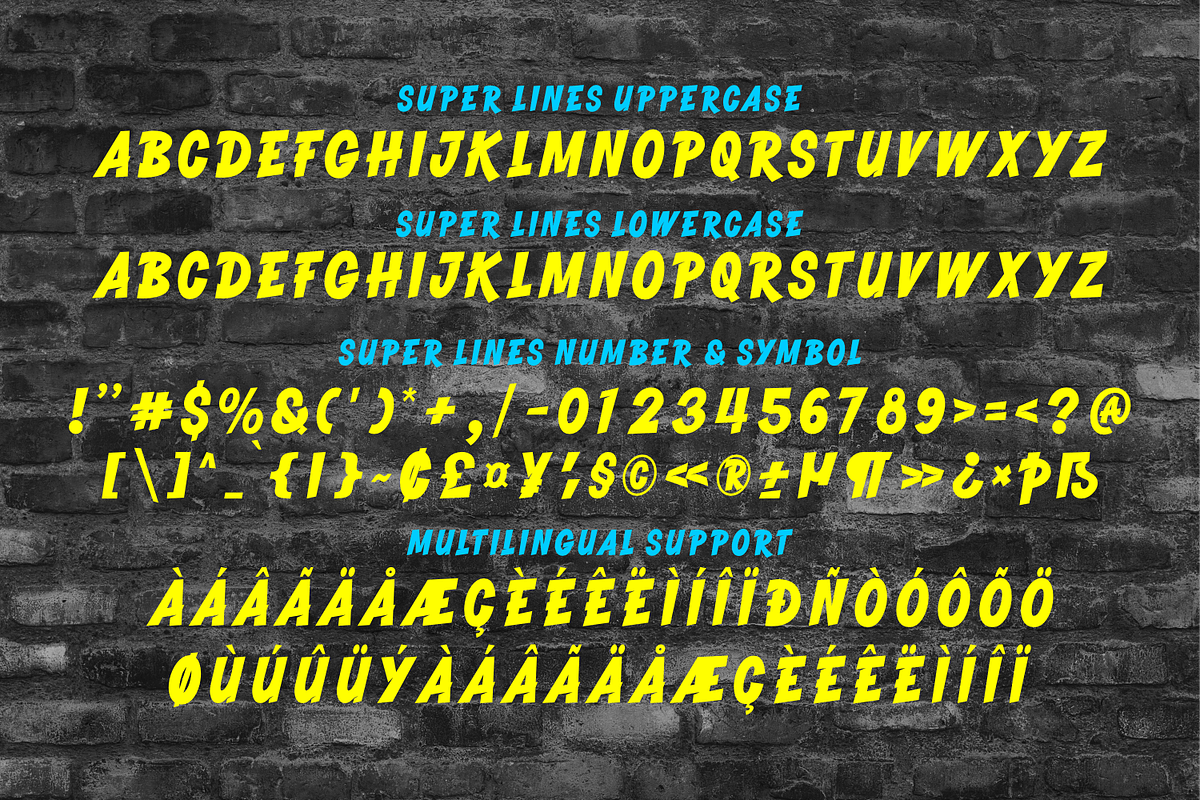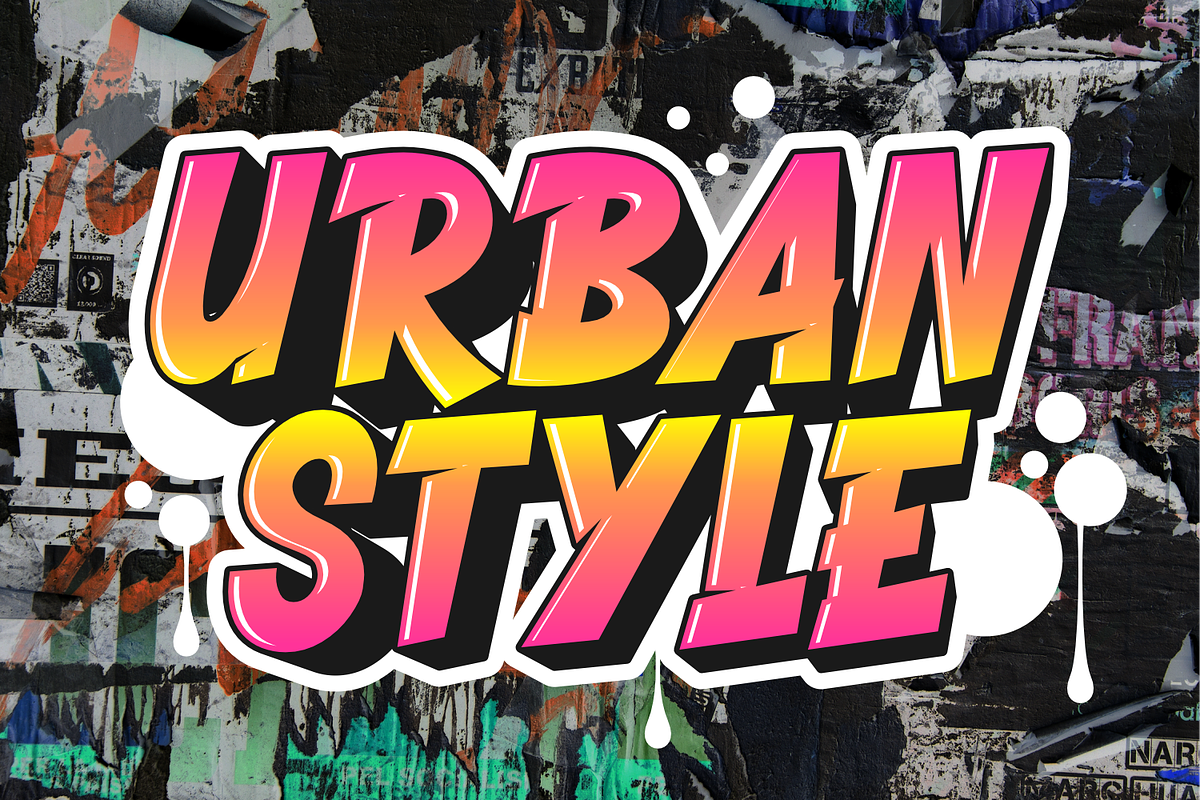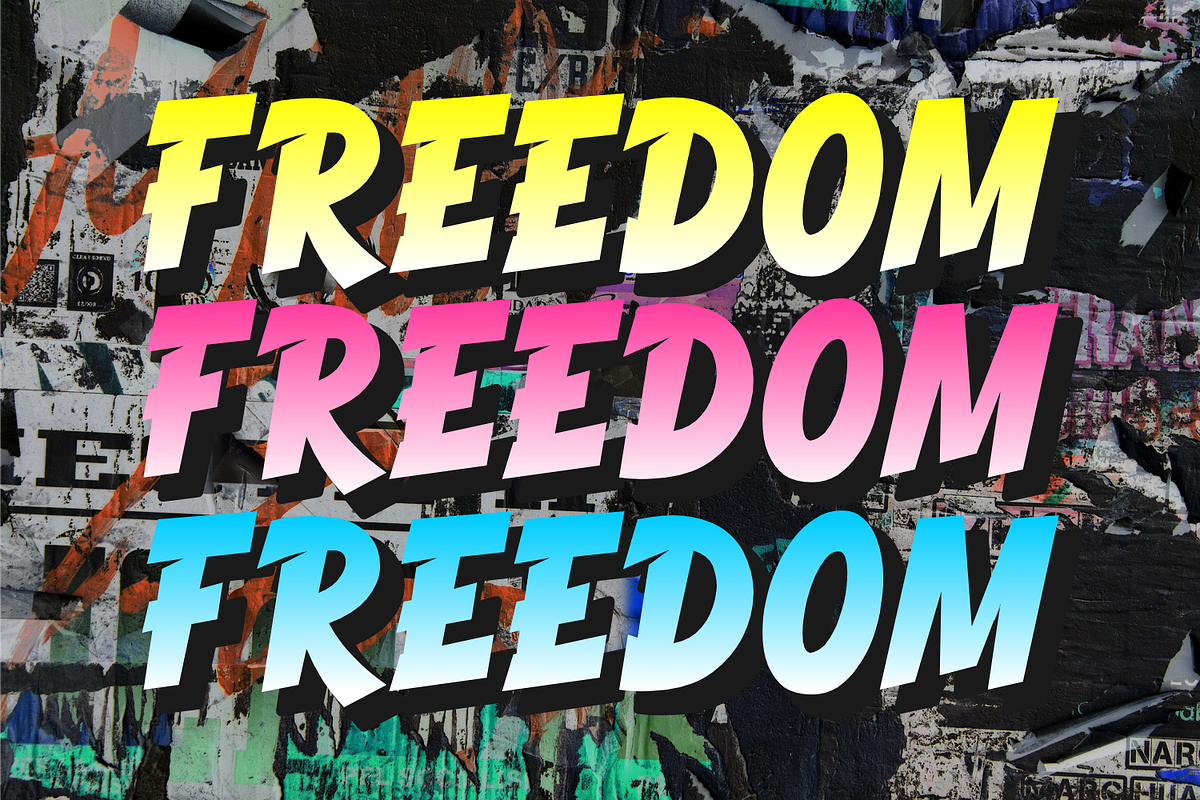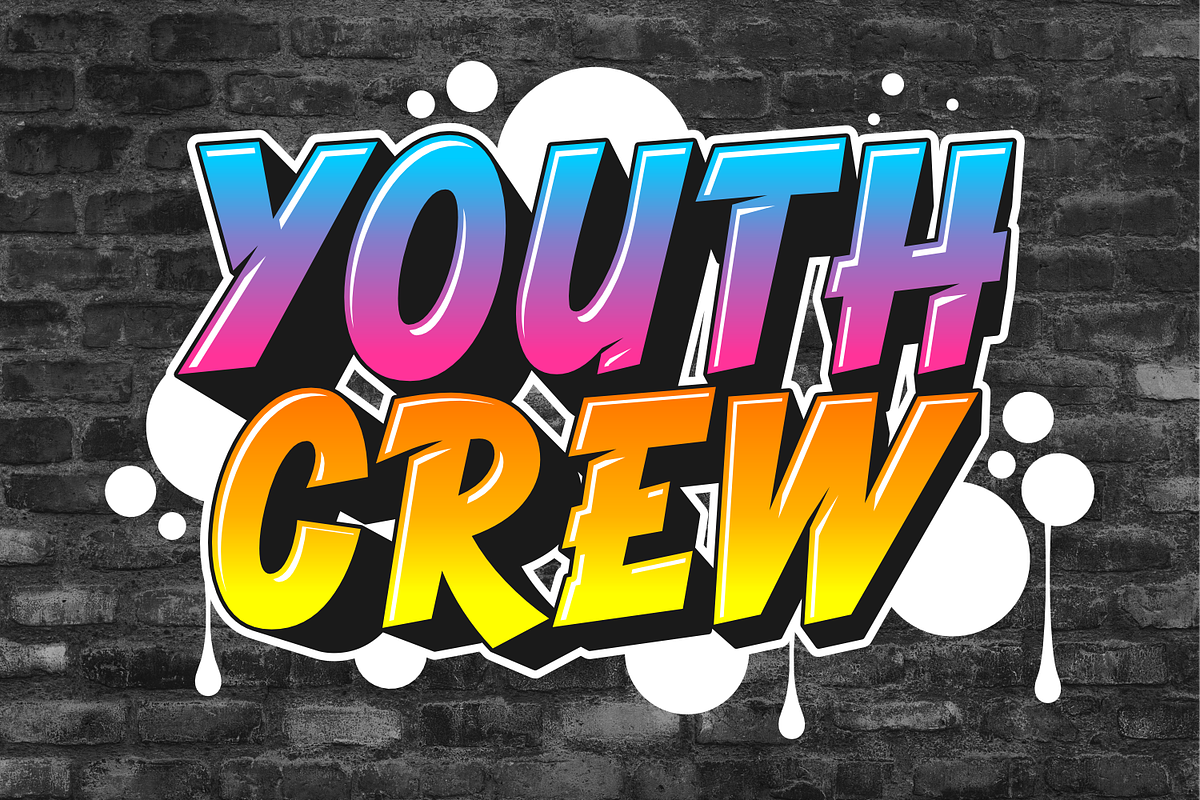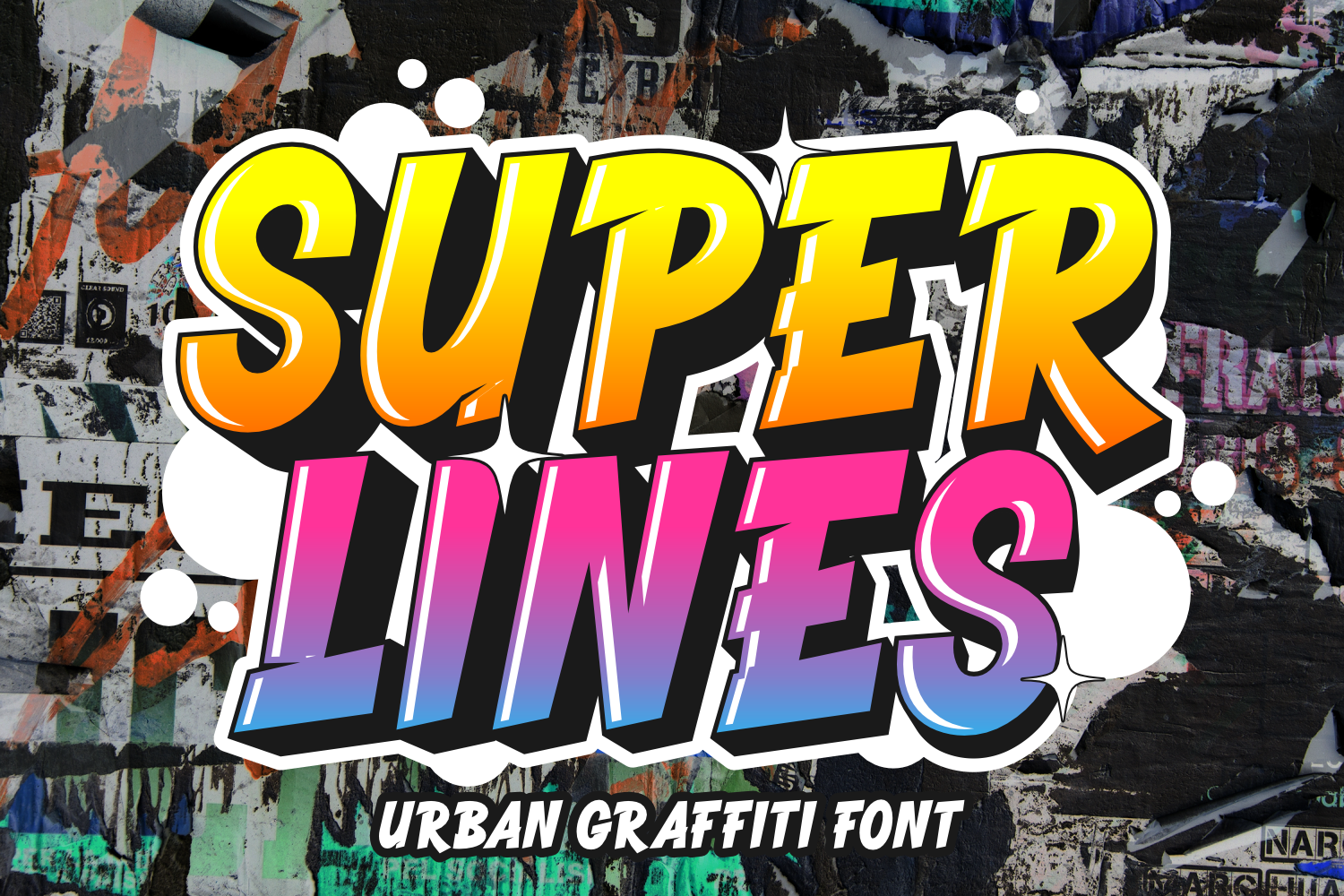
Super Lines - Graffiti Font
Drenched in the untamed spirit of street art and graffiti, Super Lines brings to you a distinctive font style that breathes authenticity. Crafted with legible letters that distinguish it from the crowd of conventional graffiti fonts, Super Lines is the perfect companion for a multitude of creative ventures. Envision your logo’s metamorphosis, spice up your social media presence, design catchy magazines, create striking t-shirts, or bring life to street designs. Super Lines doesn’t merely add text, it infuses projects with an invigorating urban energy unique to the cityscape.